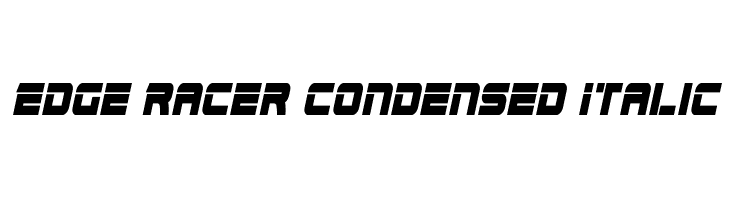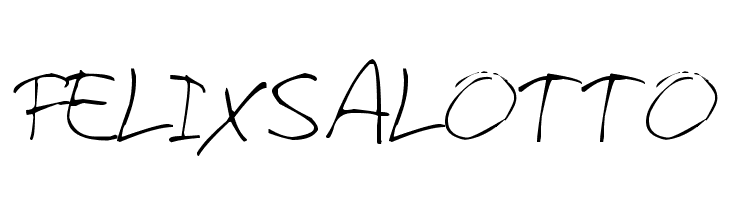
A bold, expressive script font with dynamic strokes and artistic flair.
A bold, geometric font with a modern, futuristic style and condensed width.
A bold, angular font with a dynamic and aggressive style.
An elegant script font with flowing, connected cursive letters and ornate uppercase characters.
A bold, retro 3D font with a playful, sketch-like style.
A modern, thin, and minimalist font with clean lines and balanced spacing.
A playful, hand-drawn style with rounded, consistent strokes.